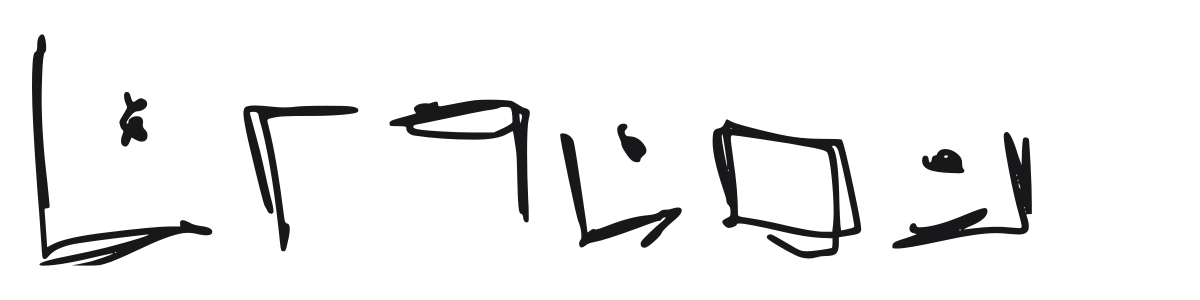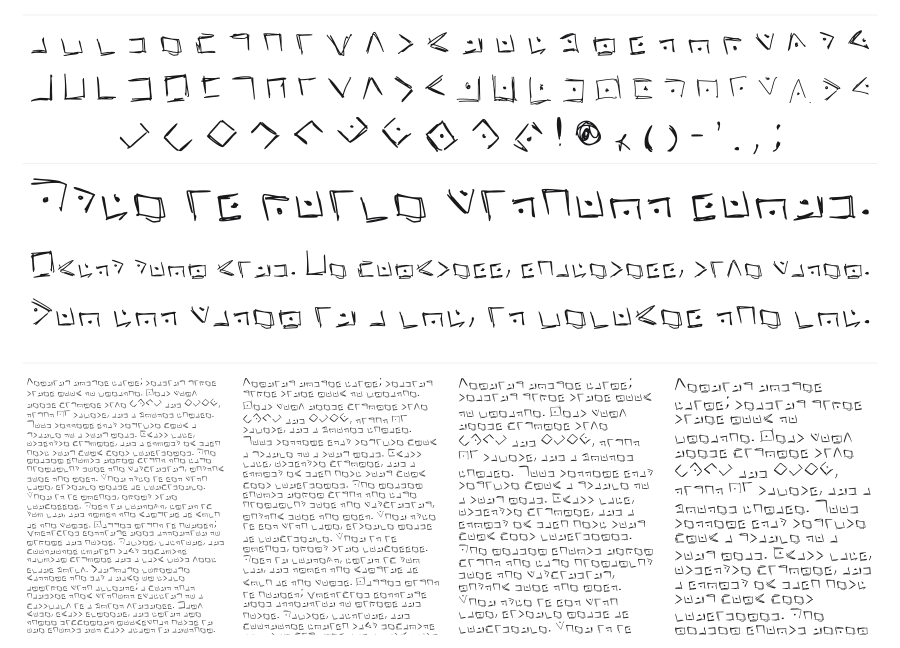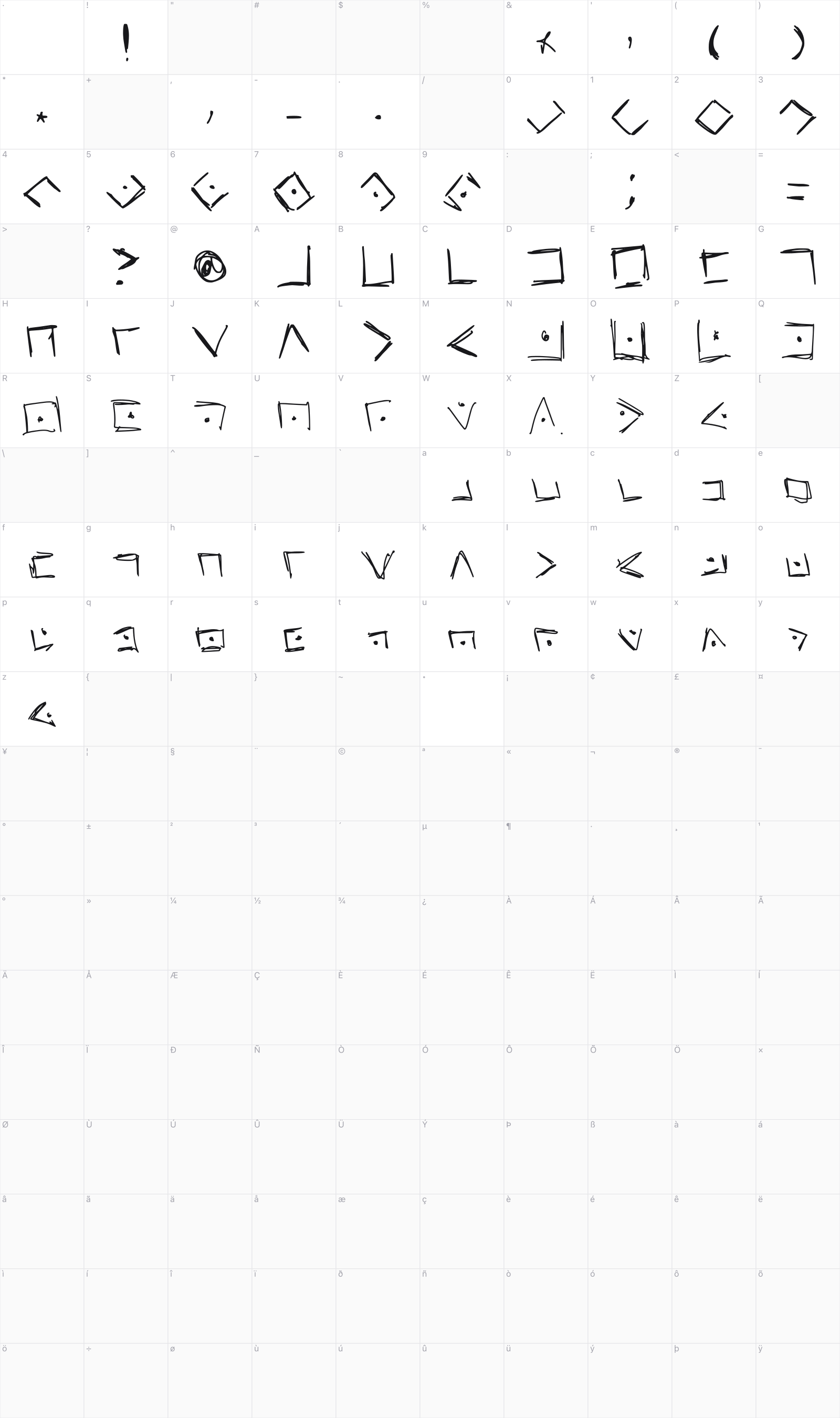
Pigpen
Pigpen is a hand-rendered typeface based on the historical Pigpen (or Masonic) cipher, encoding letters as fragments of grids and crosses. Each character is a small geometric cage drawn with loose, sketchy strokes that give it a hand-crafted, conspiratorial feel. It's a novelty font for puzzles, escape rooms, secret messages, and anything that needs to look coded.